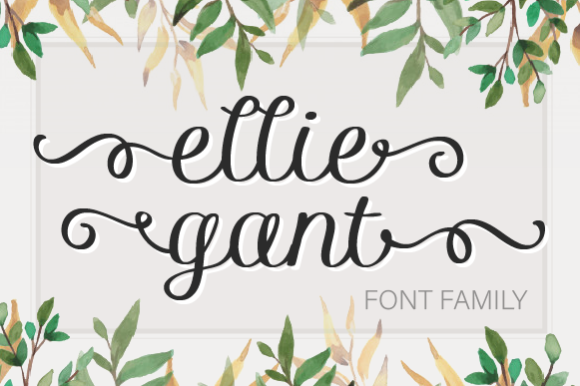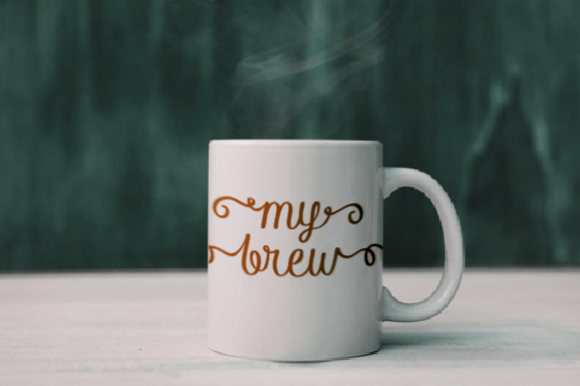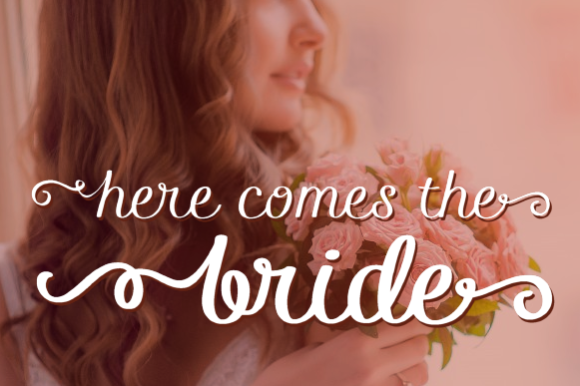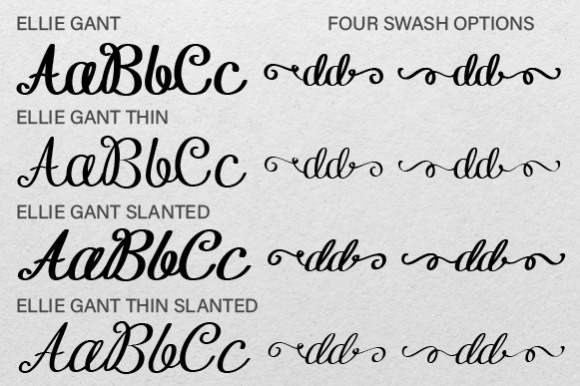
Ellie Gant Family Font
About Ellie Gant Family Font
The Ellie Gant is a beautiful script that is not too fancy and not too casual. With a calligraphic feel, this font family is great for formal and informal occasions alike. Four fonts (Ellie Gant, Ellie Gant Thin, Ellie Gant Slanted, and Ellie Gant Thin Slanted) come with two beginning swashes and two ending swashes for the lowercase letters. The possibilities for this elegant font are endless!